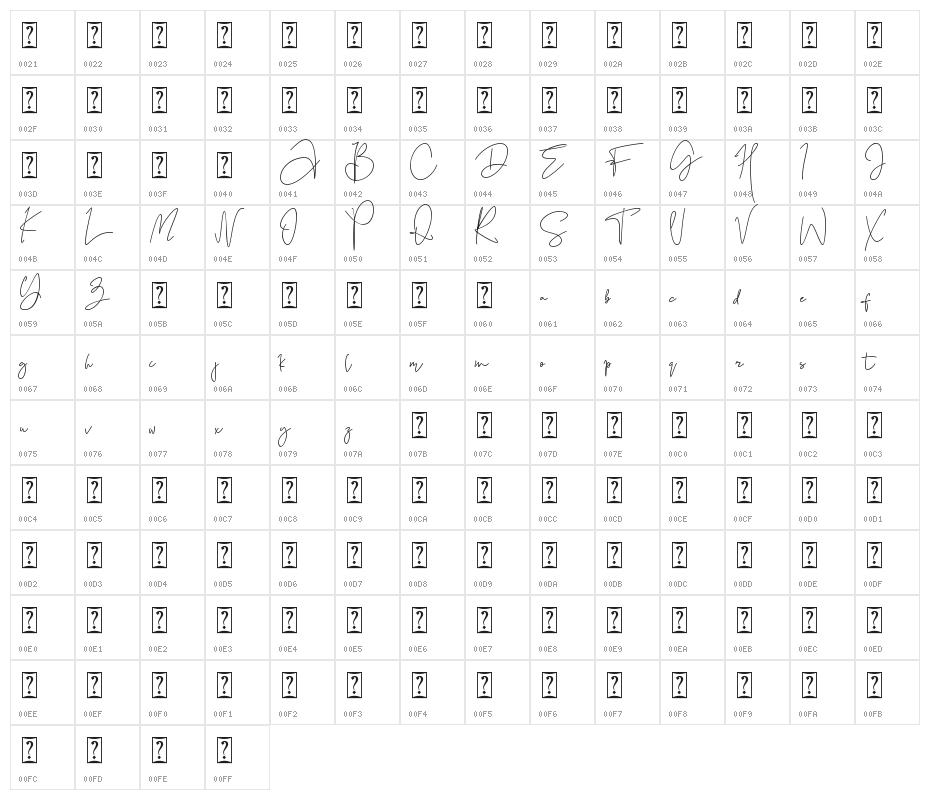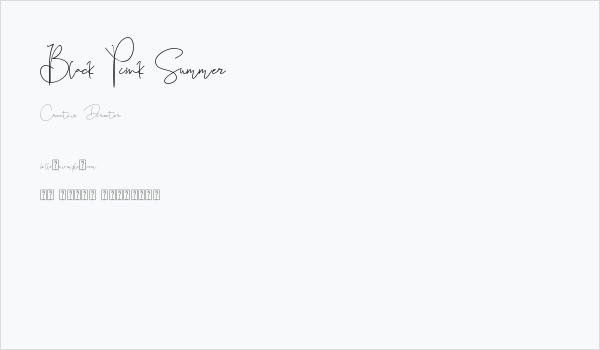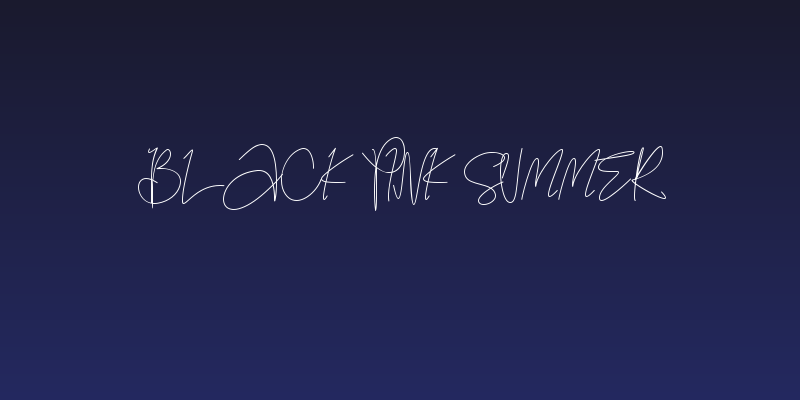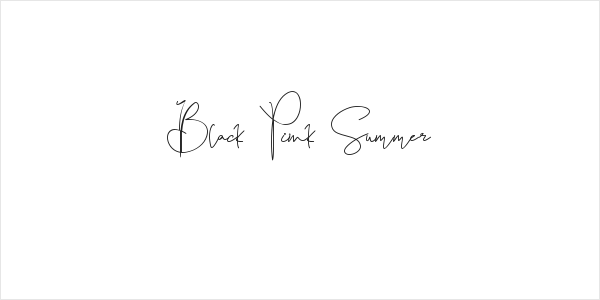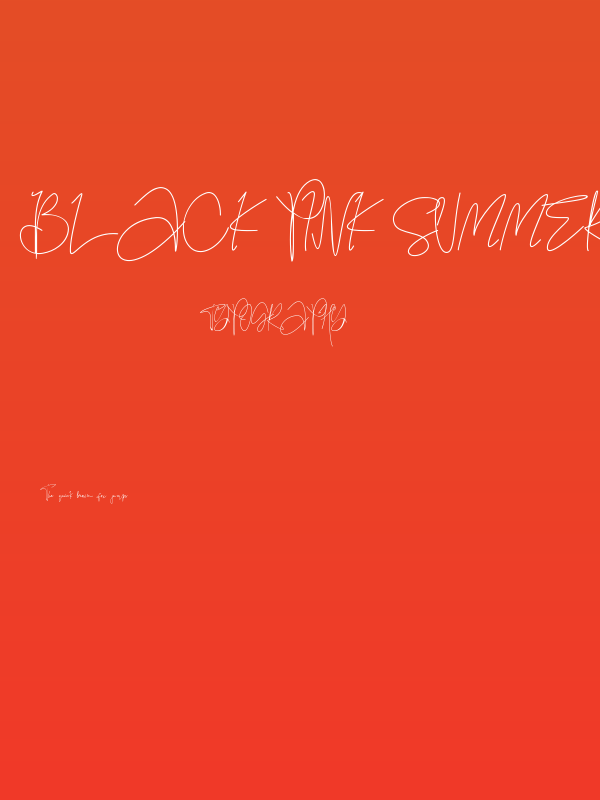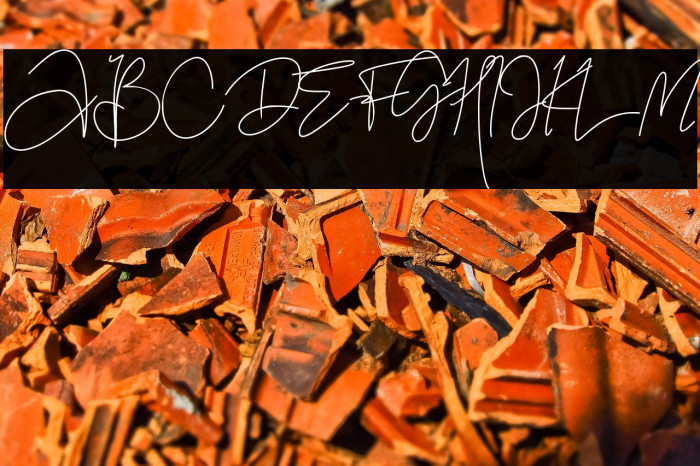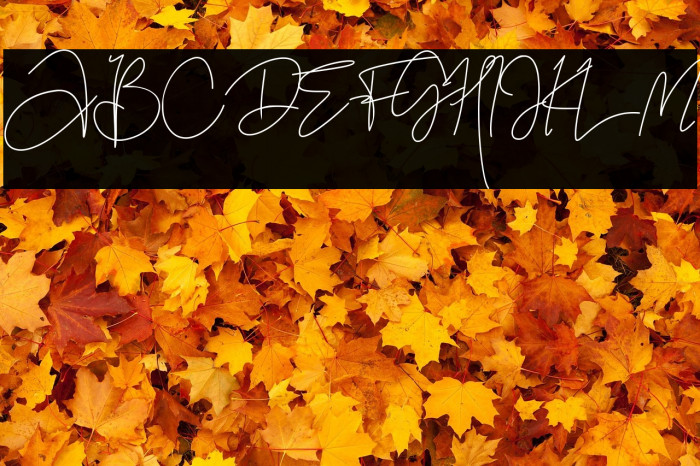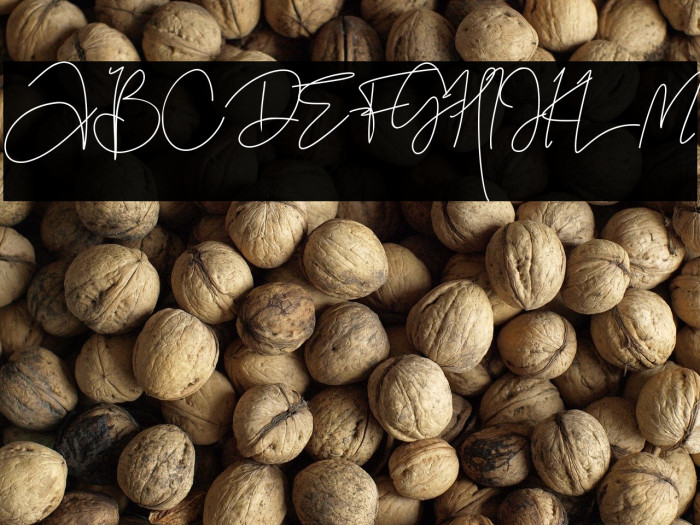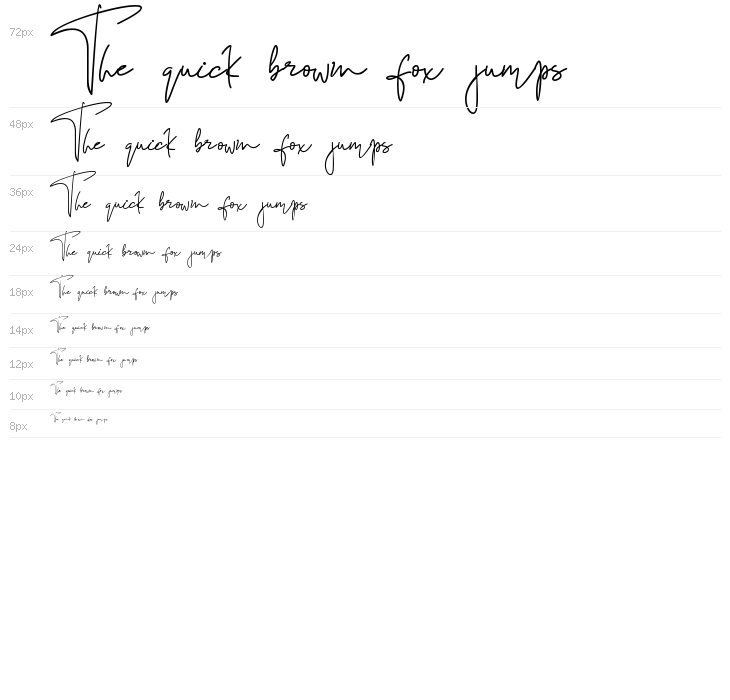
Black Pink Summer Font
Black Pink Summer Description
This font features a flowing, cursive style with an elegant and artistic flair. The uppercase letters are bold and sweeping, with exaggerated loops and curves that give them a dramatic appearance. The lowercase letters maintain a consistent fluidity, with a slightly more restrained form compared to the uppercase. The overall look is sophisticated and stylish, making it suitable for creative and expressive designs. The font's unique character is enhanced by its handwritten quality, which adds a personal touch to any project.
| Proposed Projects | Ideal for wedding invitations, branding, greeting cards, and artistic projects. |